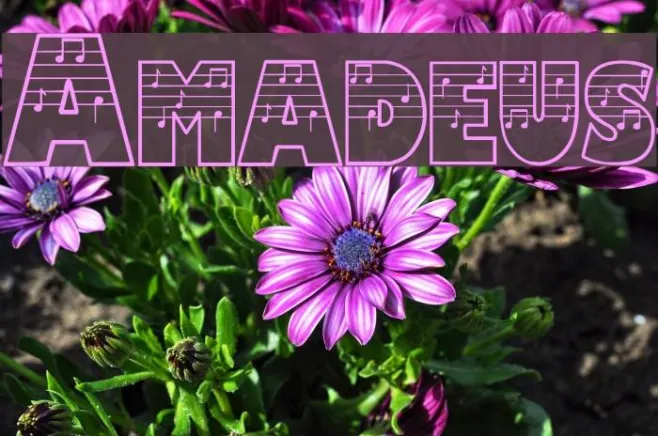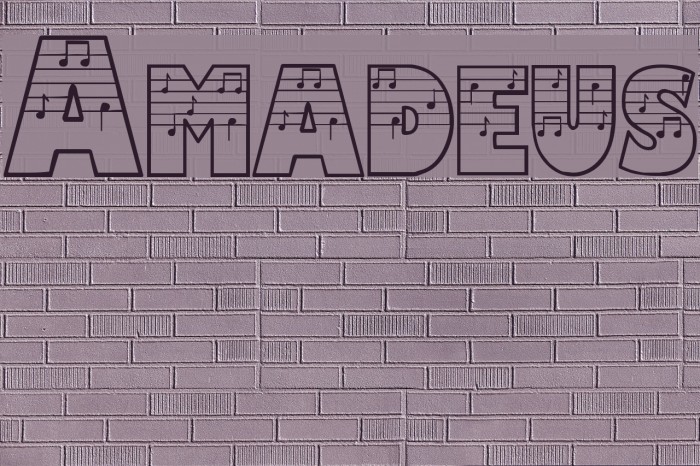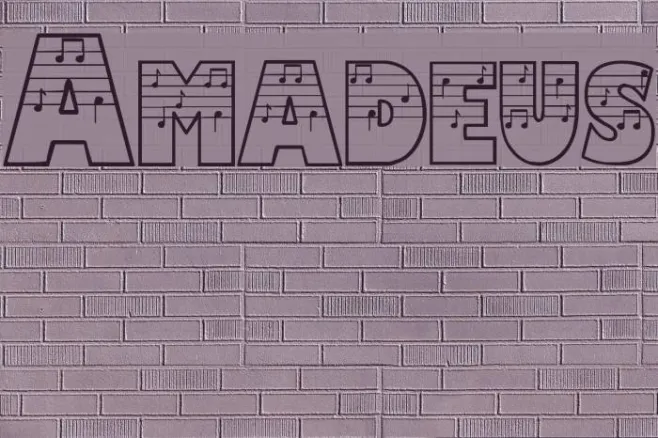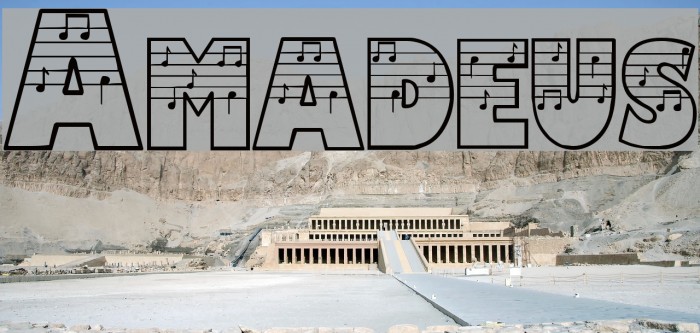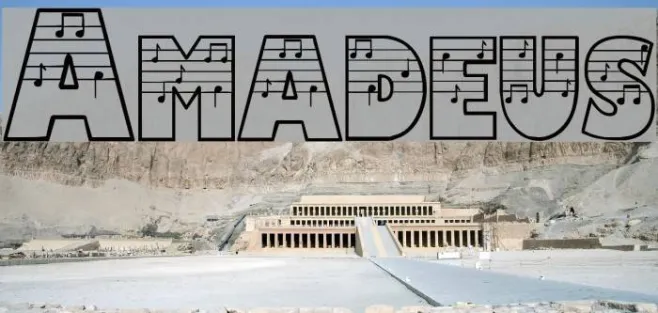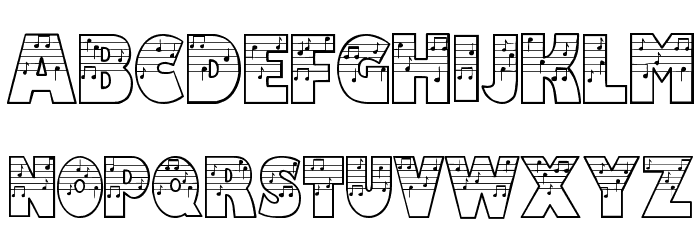
Amadeus Font
Amadeus Description
This font features a unique and creative design where each character is filled with musical notes, giving it a distinct and artistic appearance. The letters are bold and outlined, providing a strong visual impact. The incorporation of musical elements within the characters makes it ideal for projects related to music, arts, or entertainment. The uppercase letters are prominently displayed, and the overall style is decorative and playful, making it suitable for eye-catching headlines or thematic designs.
| Use Case | Headlines, Logos, Artistic designs |
| Proposed Projects | Perfect for music event posters, album covers, artistic branding, and creative invitations. |